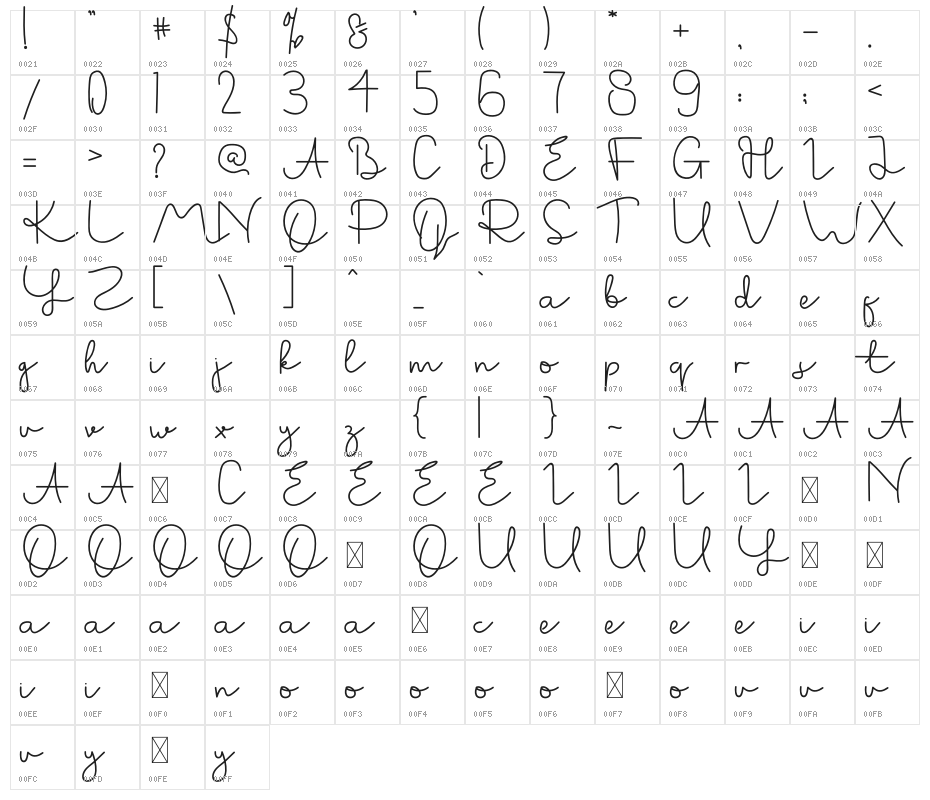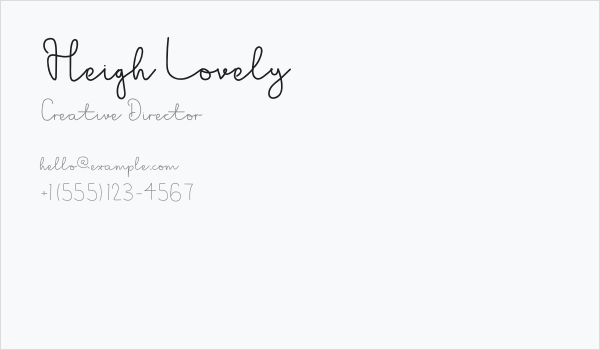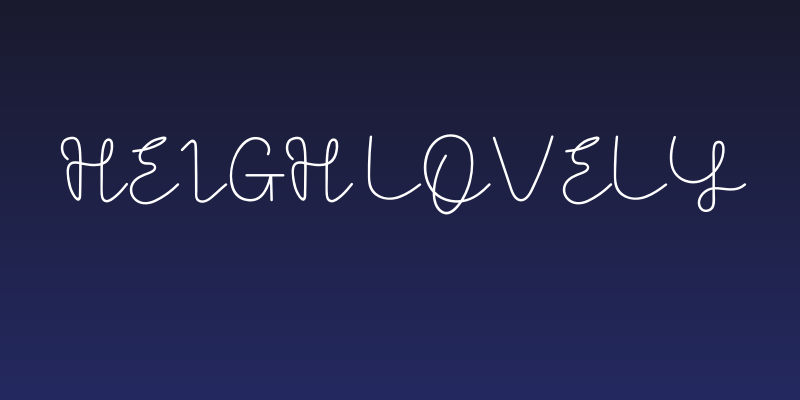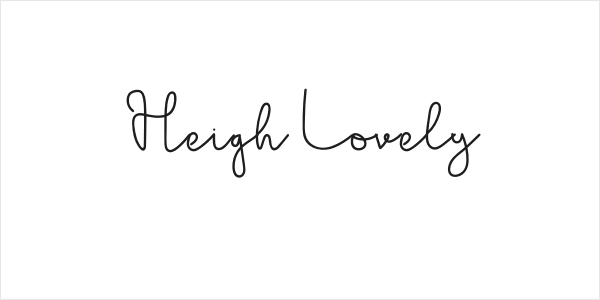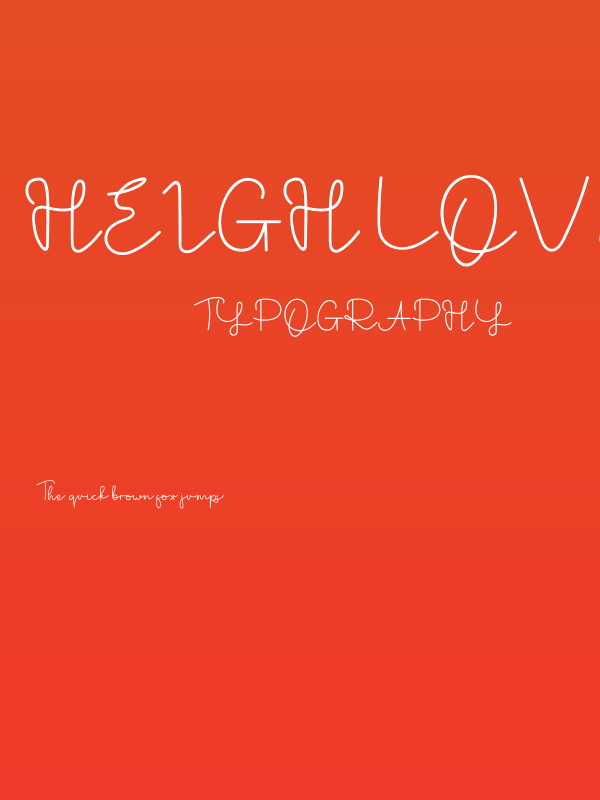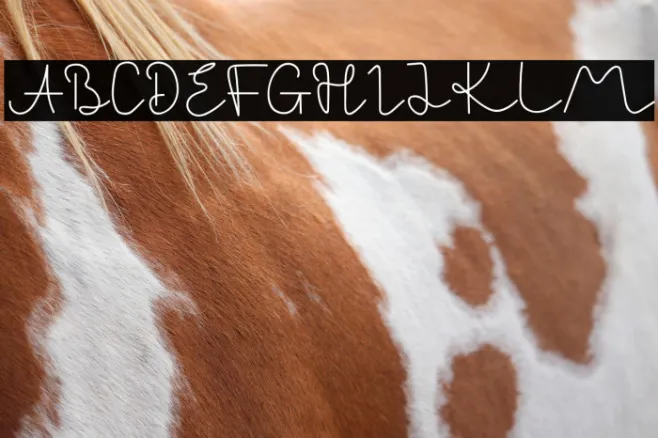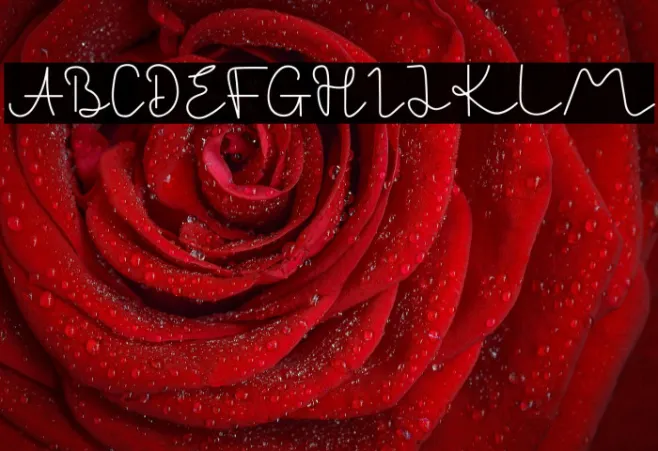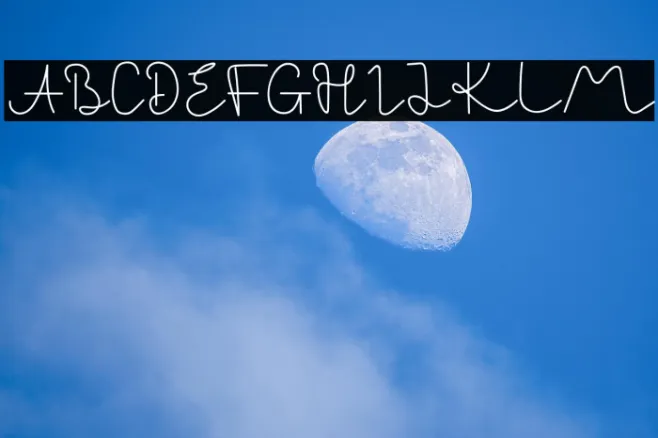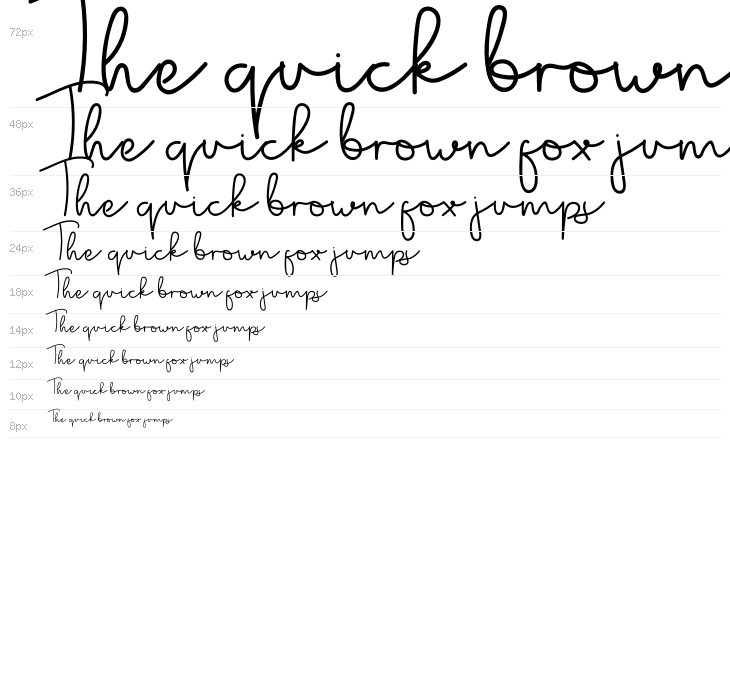
Heigh Lovely Font
Heigh Lovely Description
This font features a playful and whimsical style, characterized by its flowing, cursive-like strokes. The uppercase letters are distinct with a mix of loops and straight lines, giving them a unique, hand-drawn appearance. The lowercase letters continue this theme with a more pronounced cursive influence, creating a sense of movement and fluidity. Numbers and special characters maintain the same playful aesthetic, ensuring consistency across all glyphs. The overall design is light-hearted and informal, making it suitable for creative and casual applications.
| Proposed Projects | Ideal for greeting cards, children's books, playful branding, and creative invitations. |